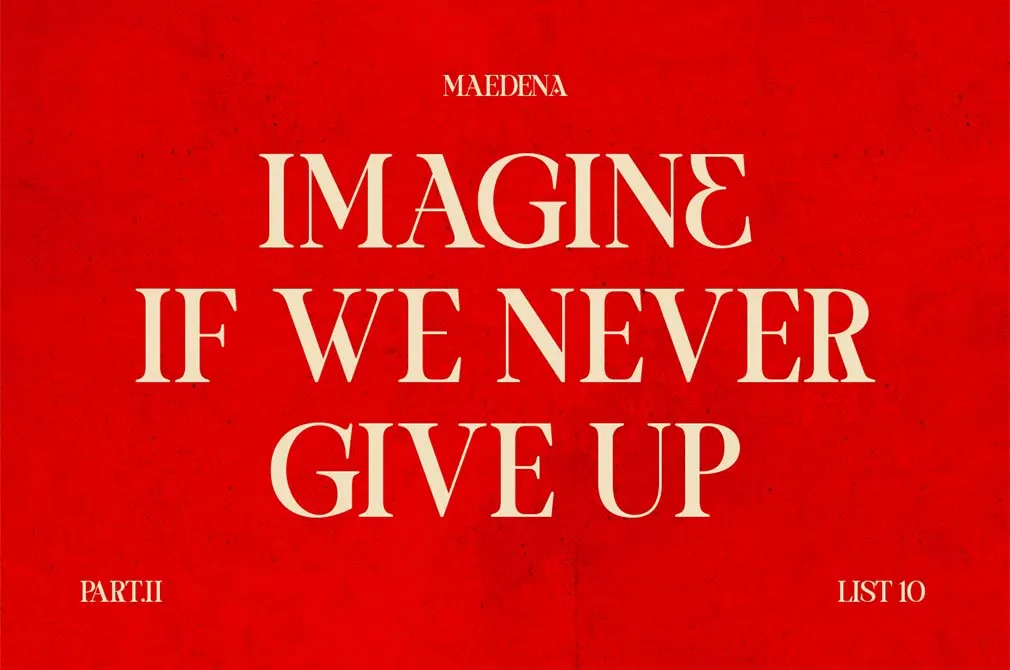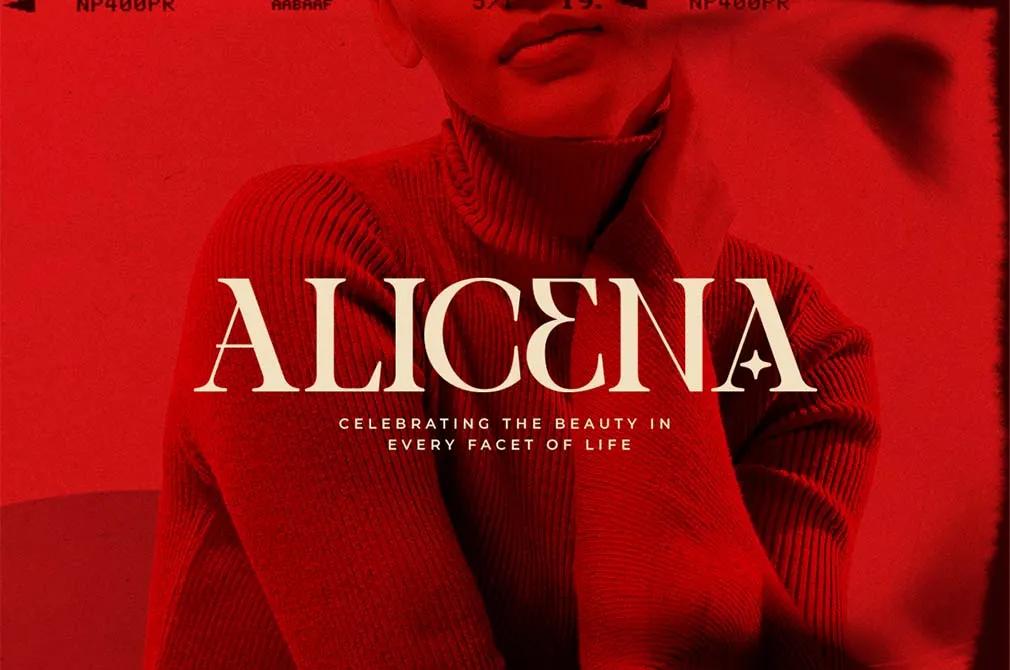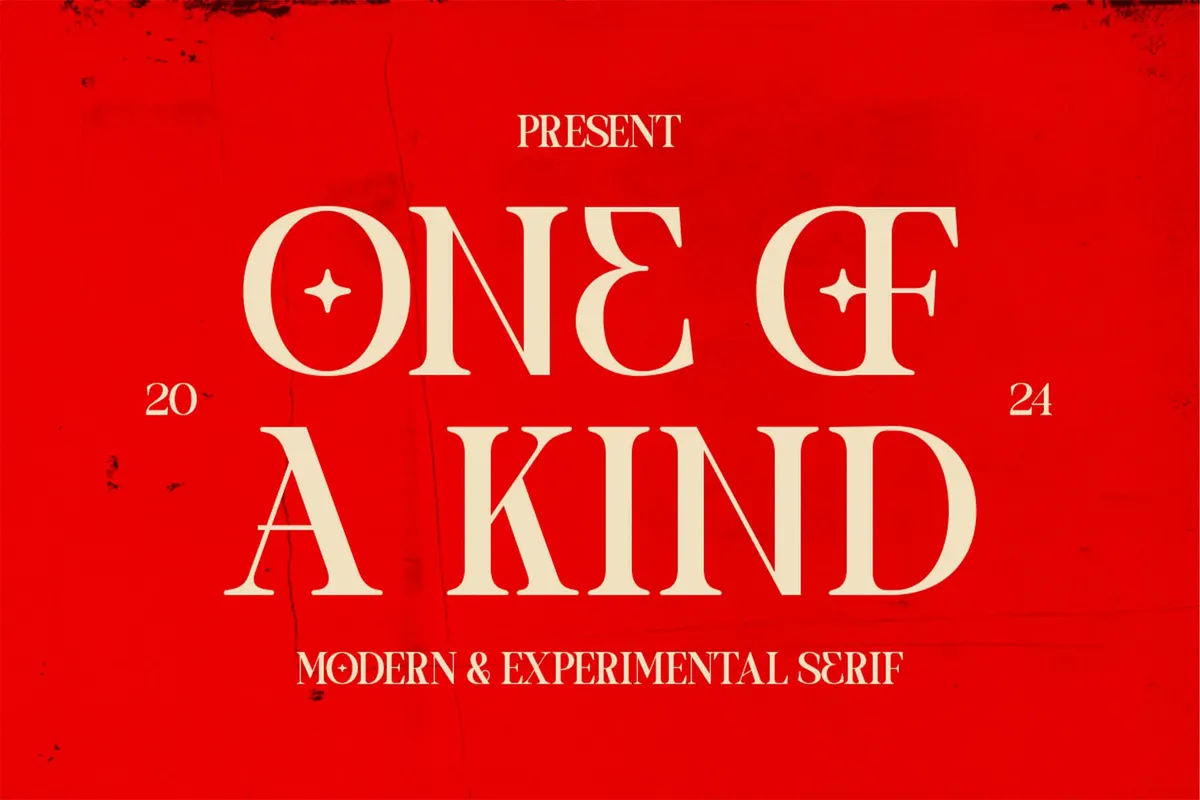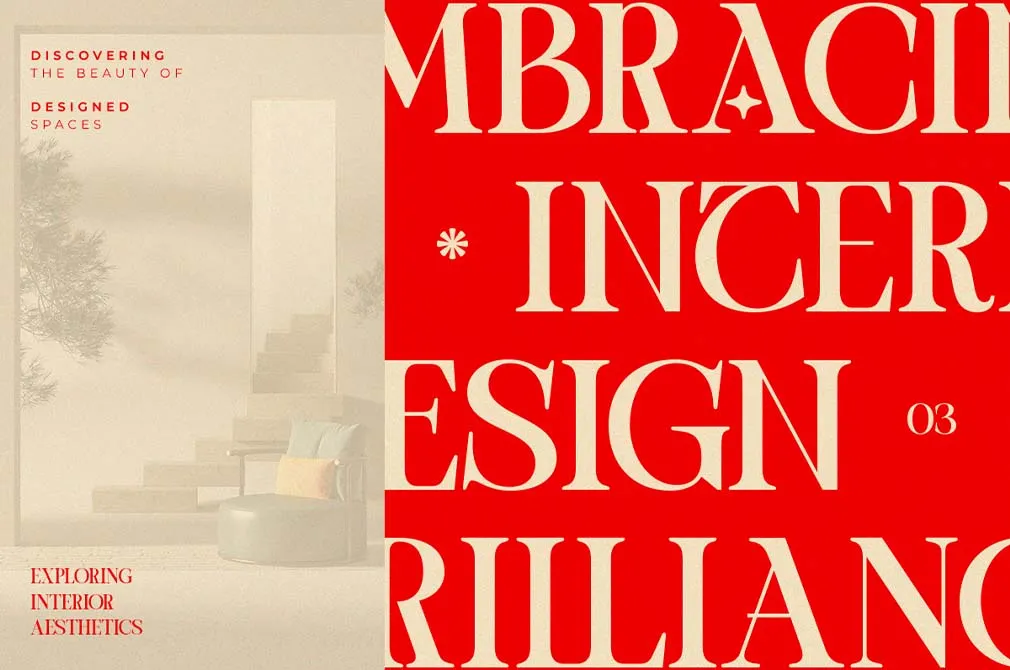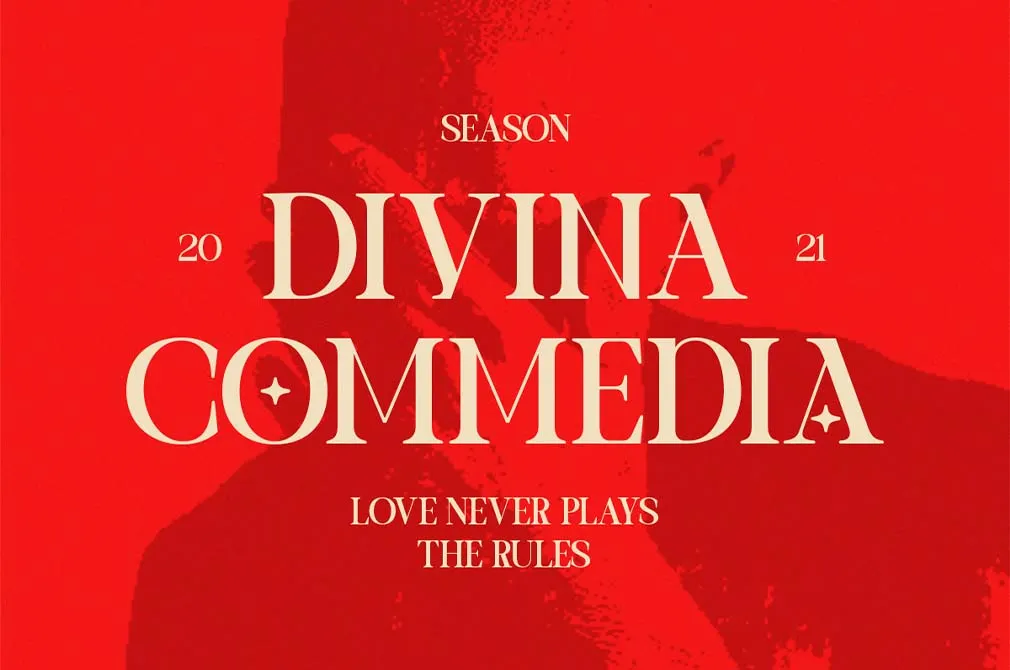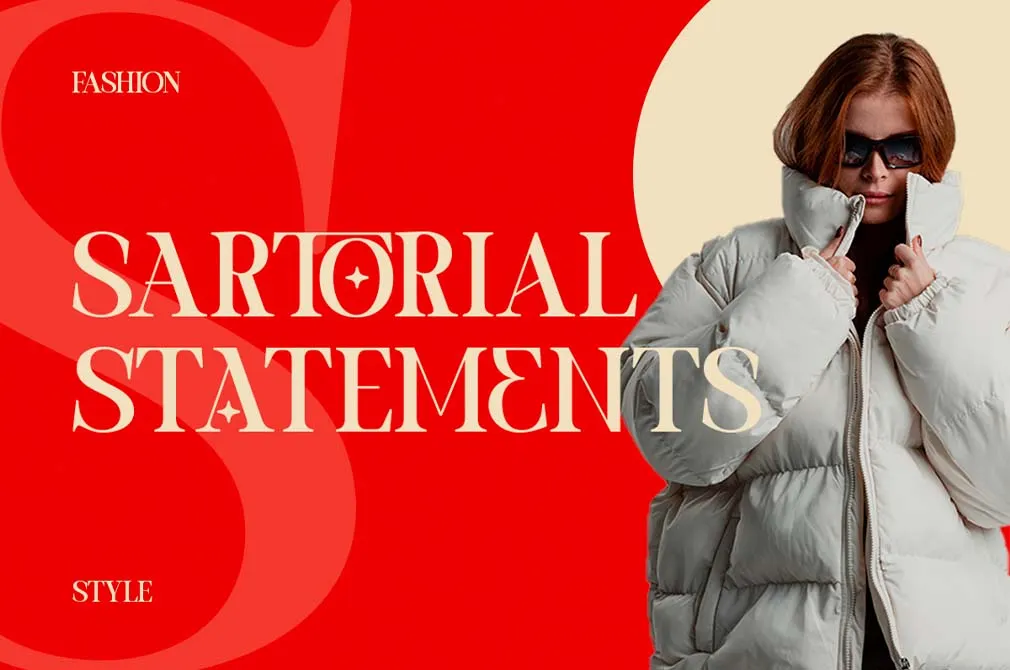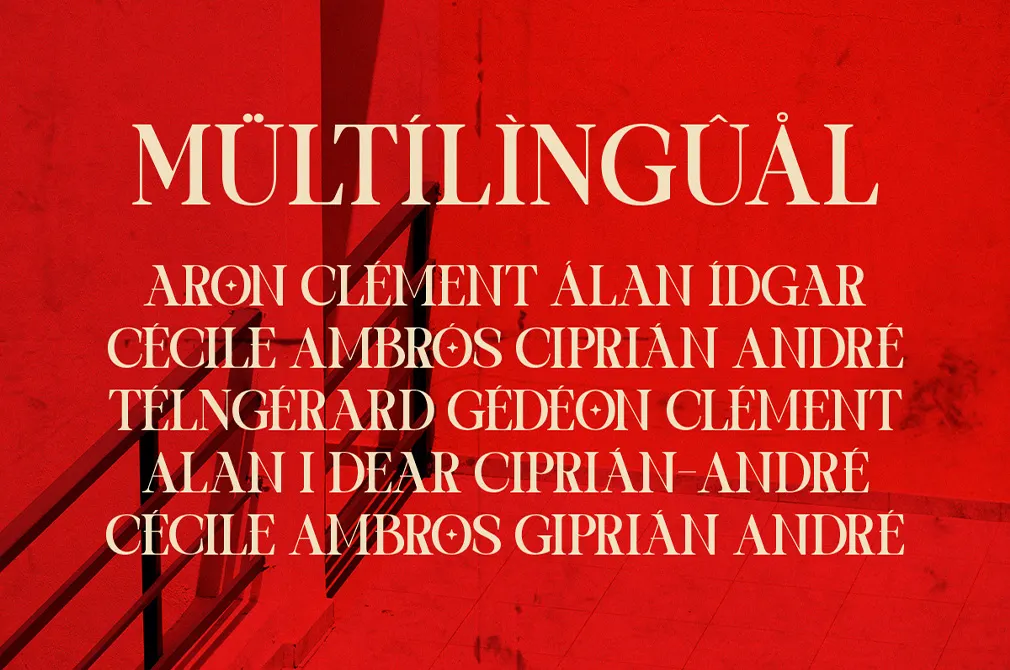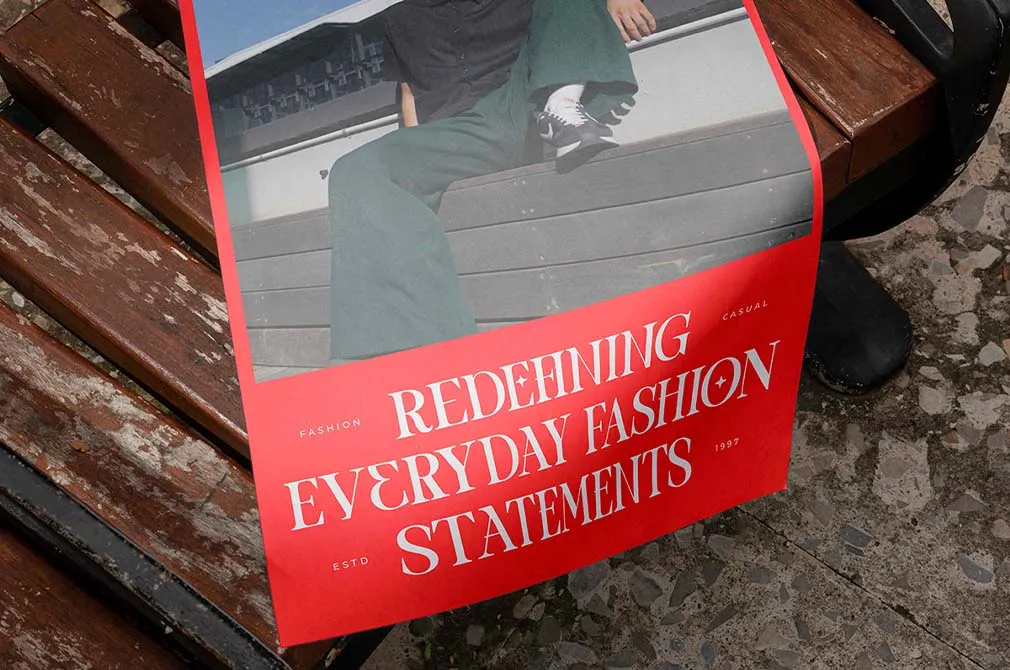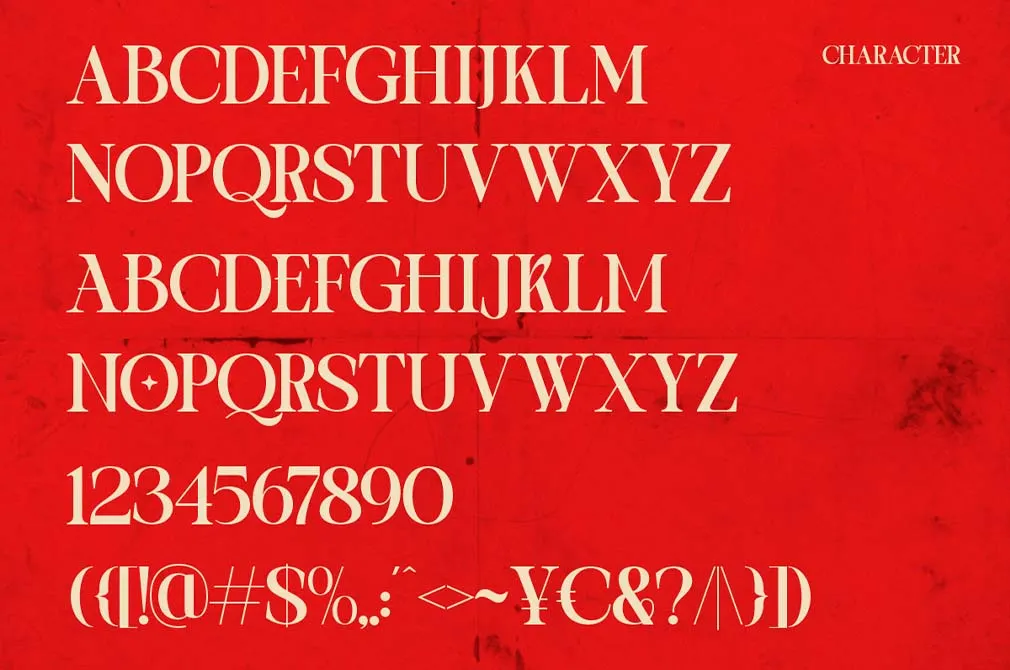
One Of a Kind | Serif Font
Just imagine vintage infatuation and exuberant simplicity of the passed decades beauty, or whatever tickles your fancy. Refrain from denying yourself the pleasure of indulgent '90s aesthetics throwback inspo embodied in this serif.
The serif flawlessly embodies the exquisite ambiance with neatly curated uppercase, lowercase, and accented characters. The regularfont contains alternates, ligatures, numerals, and punctuation stuck to one style — there is no better ode to the '90s than having everything you need in your designcouched in the same vibe.